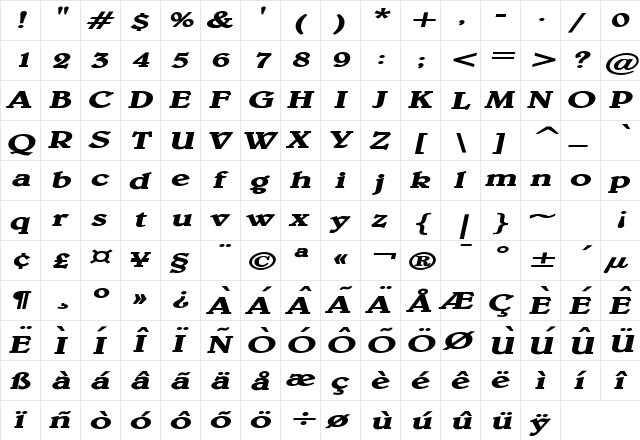
Blew Extended Bold Italic Font Preview
Design Context for Blew Extended Typeface
Blew Extended takes a measured approach to typography — its balanced proportions and neutral character make it a reliable workhorse for both digital and print work. The dynamic lean of this cut emphasises speed and emphasis in any layout. The heavy weight commands attention and anchors typographic hierarchies.
Pro Tip: Use Blew Extended for emphasis, pull quotes, and subheadings where its slanted energy can add rhythm to the layout.